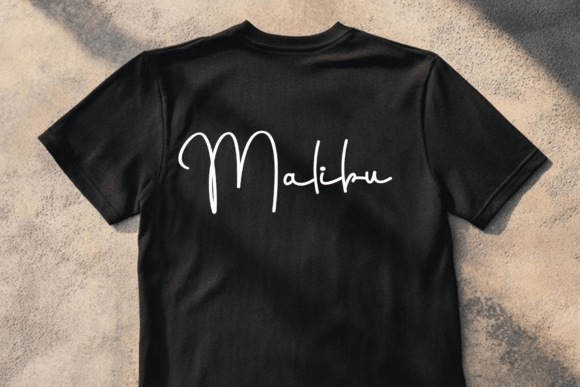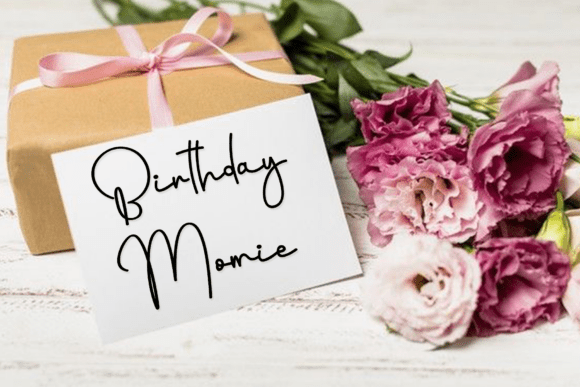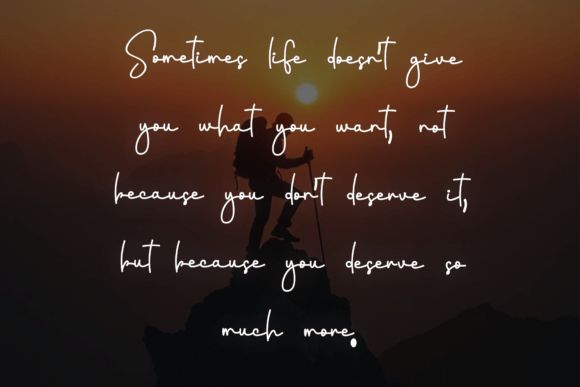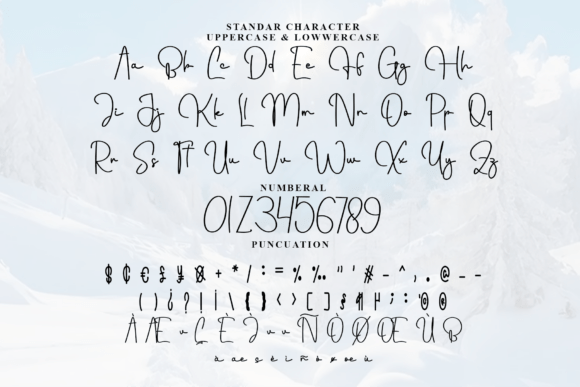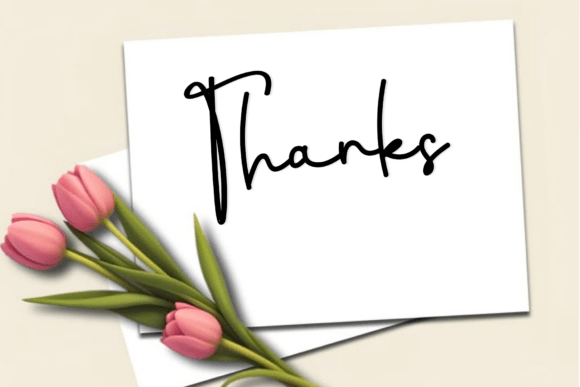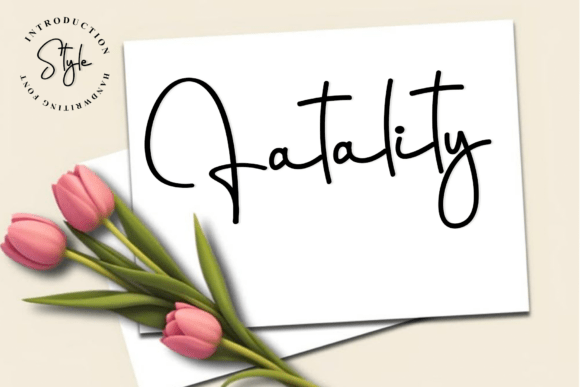
Introducing Fatality Font: Elevate Your Design with Elegance and Sophistication
In the world of typography, the right font can make all the difference in elevating your design from ordinary to extraordinary. For designers and crafters seeking a unique and professional touch, Fatality Font emerges as a standout choice. This modern handwritten font is crafted to evoke a sense of clarity and crisp elegance, making it an ideal selection for projects that demand a refined aesthetic.
The Characteristics of Fatality Font
Fatality Font is distinguished by its tall, thin strokes and subtle, airy slant. This distinctive combination lends the font an approachable yet sophisticated feel, reminiscent of a fresh mountain breeze. The clean lines and elegant flow of Fatality Font make it versatile for a wide range of applications, from travel photography and outdoor gear branding to sophisticated web design.
Ideal Applications for Fatality Font
- Travel Photography: Enhance your travel photography with a font that echoes the clarity and beauty of the landscapes you capture. Fatality Font’s elegant and airy feel complements the natural world, adding a professional touch to your work.
- Outdoor Gear Branding: For brands that thrive in the great outdoors, Fatality Font offers a typographic solution that resonates with adventure and sophistication. Its refined aesthetic appeals to audiences seeking quality and reliability in their outdoor gear.
- Sophisticated Web Design: In the digital realm, Fatality Font can elevate your web design by introducing a layer of elegance and modernity. Its readability and unique style ensure that your website stands out, inviting visitors to explore your content with ease and interest.
Why Choose Fatality Font?
Fatality Font is more than just a typeface; it’s a design statement. Its unique blend of modernity and elegance offers several advantages:
- Versatility: Suitable for a wide range of projects, from digital to print, Fatality Font adapts seamlessly, ensuring your design looks great across various platforms.
- Legibility: The font’s clean and airy design ensures excellent legibility, making it perfect for body text as well as headlines.
- Uniqueness: Stand out from the crowd with a font that brings a fresh perspective to the world of handwritten typography.
Tips for Using Fatality Font Effectively
To maximize the impact of Fatality Font in your designs, consider the following tips:
- Pair with Contrasting Fonts: Combine Fatality Font with a more robust or serif font to create visual interest and hierarchy in your design.
- Experiment with Colors: While Fatality Font looks stunning in darker tones, don’t hesitate to experiment with lighter colors or gradients to match your brand’s aesthetic.
- Play with Spacing: Take advantage of the font’s airy feel by adjusting spacing to enhance readability and add a touch of sophistication to your text.
Fatality Font represents a unique and professional entry into the modern handwritten collection, offering designers and crafters a tool to infuse their projects with clarity, elegance, and a touch of sophistication. Whether you’re working on travel photography, outdoor gear branding, or sophisticated web design, Fatality Font is poised to elevate your work to new heights. Embrace the elegance and versatility of Fatality Font, and let your designs speak with a refined and crisp voice.